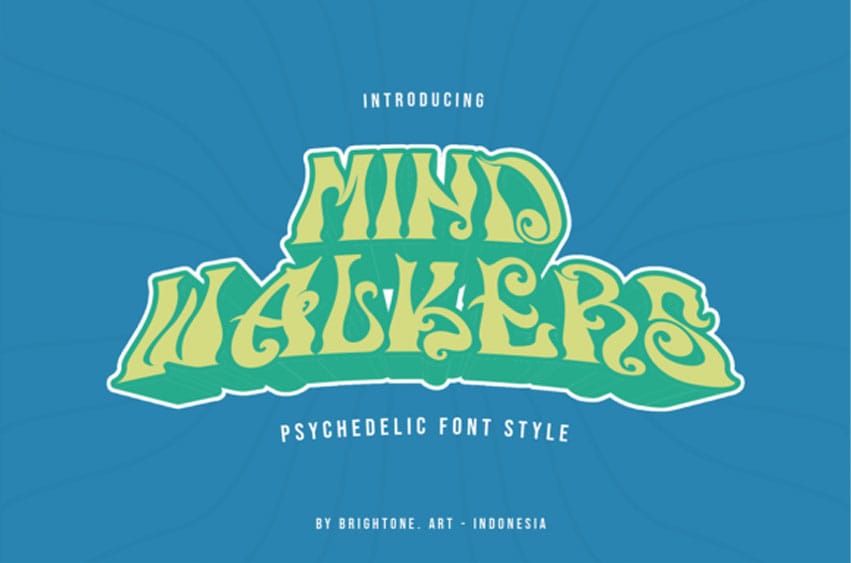
Mind Walkers Font is a psychedelic display font with an amazing style.
Use it to create outstanding logos, shirt designs, pouch bag designs, labels, stickers, branding, and so much more.